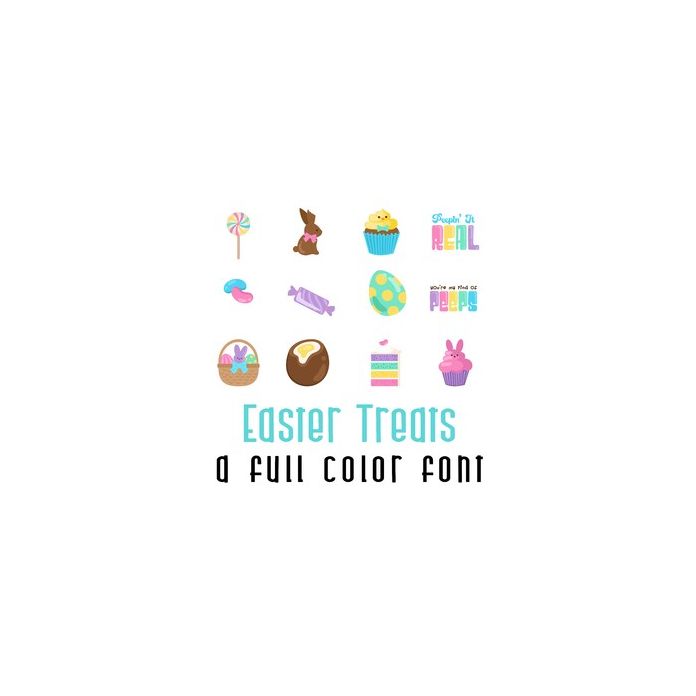
This adorable full-color doodlebat font features 26 Easter candies. Perfect for cards, crafts, gifts, decor, scrapbook pages, planner stickers, and more!